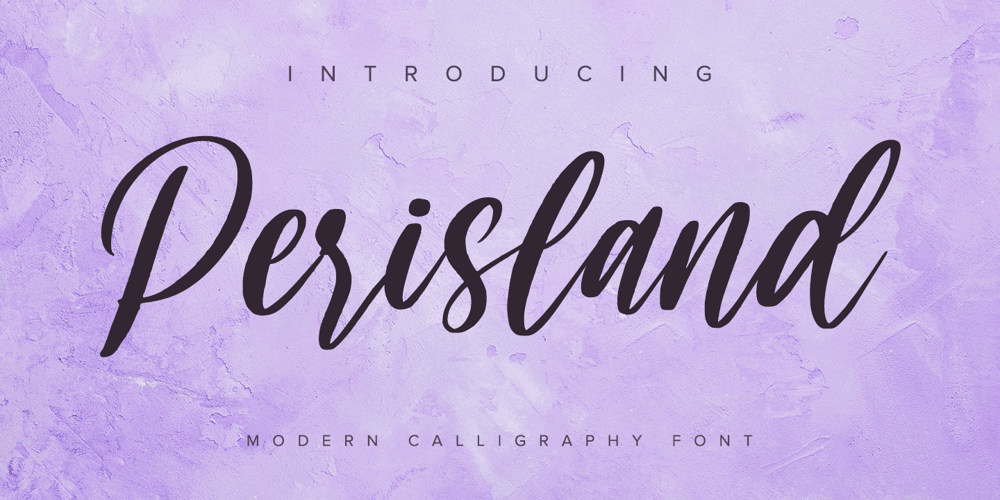
Perisland Font Family was designed by Donis Miftahudin and published by Ditatype. Perisland contains 1 styles and family package options. Perisland is a modern handwritten font. With a classy and natural handwritten style, it brings a classy and chic typeface. Perisland is best used for weddings, branding, logotype, and quotes.Includes: Perisland (OTF)Features: Beautiful Ligatures PUA Encoded Multilingual Support Numerals and Punctuation